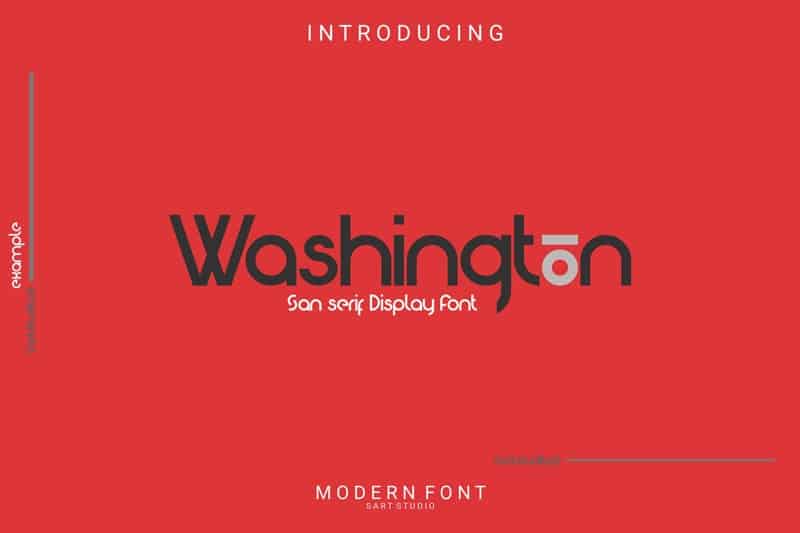
Washington Display Font draws upon the machine-driven typography of the first American PC boom of the 1980s, word processing typefaces made for easy reading at low resolution, and in-game typography. a large x-height means easy onscreen reading; a round joint means friendliness. It will look particularly adept when used in logos, branding, packaging design, and much more. This masterfully designed typeface is a true must-have.
Washington